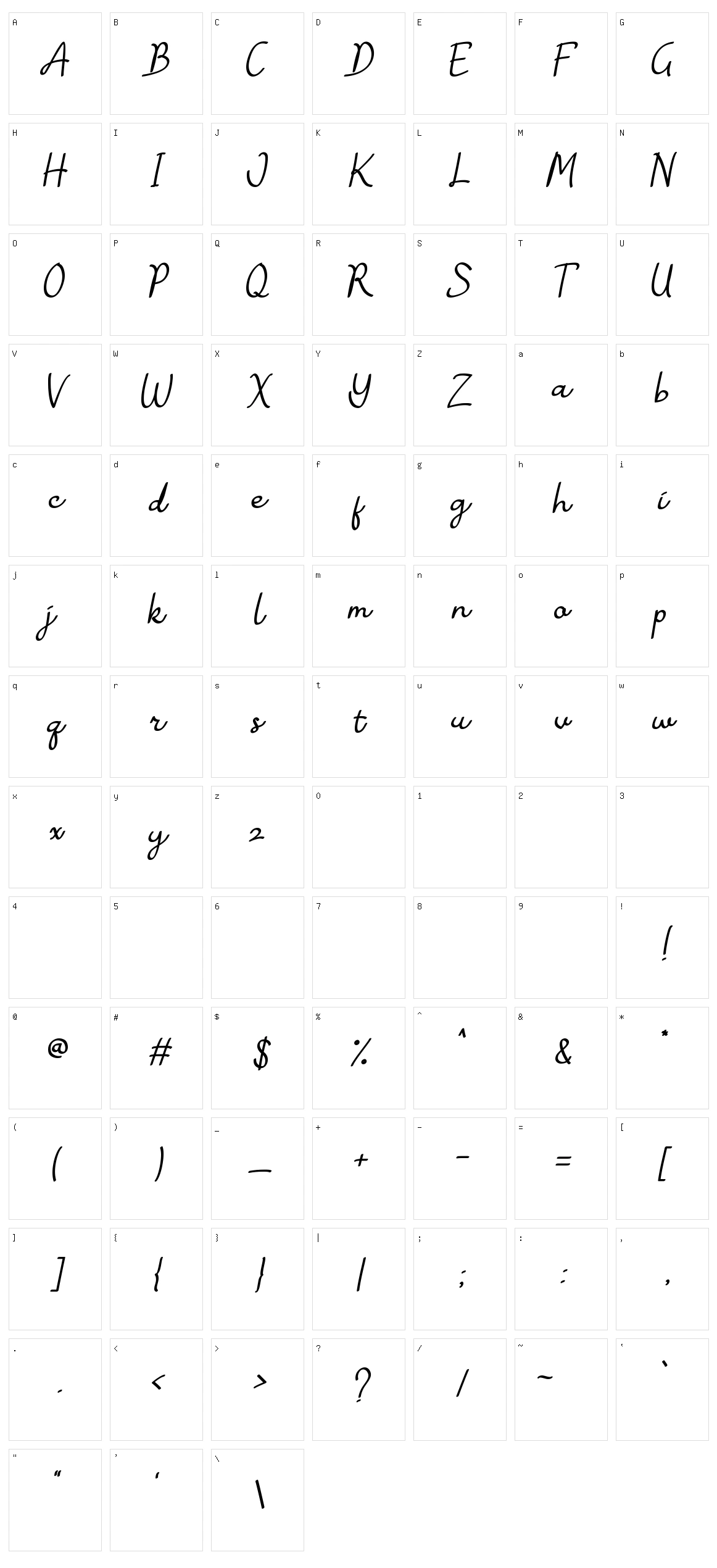
Introducing my new Beautifull and elegant font project, it's called Janille.
The Janille is a beautiful script font. Its handwritten style is perfect for logos, wedding invitations, birthday cards, quotes, headlines, posters, and every other design which needs an elegant typeface.
This font comes with swashes option that can add beautifull touch to your design project.